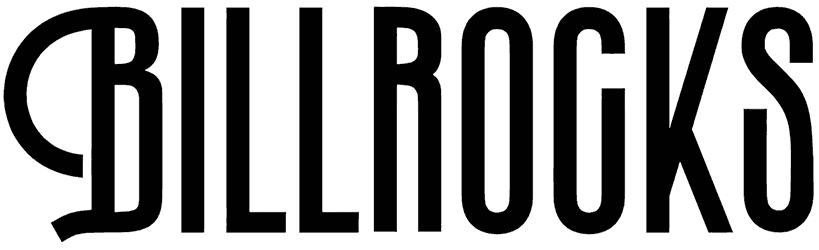
Billrocks Font
Billrocks will look incredible on a bunch of text designs like movie posters, applications, video games, and whatnot. This retro font features tall and medium characters. Bear in mind that this case doesn’t cover lowercase letters and numbers. Download it without further delay and add a classic vibe to your text layout.